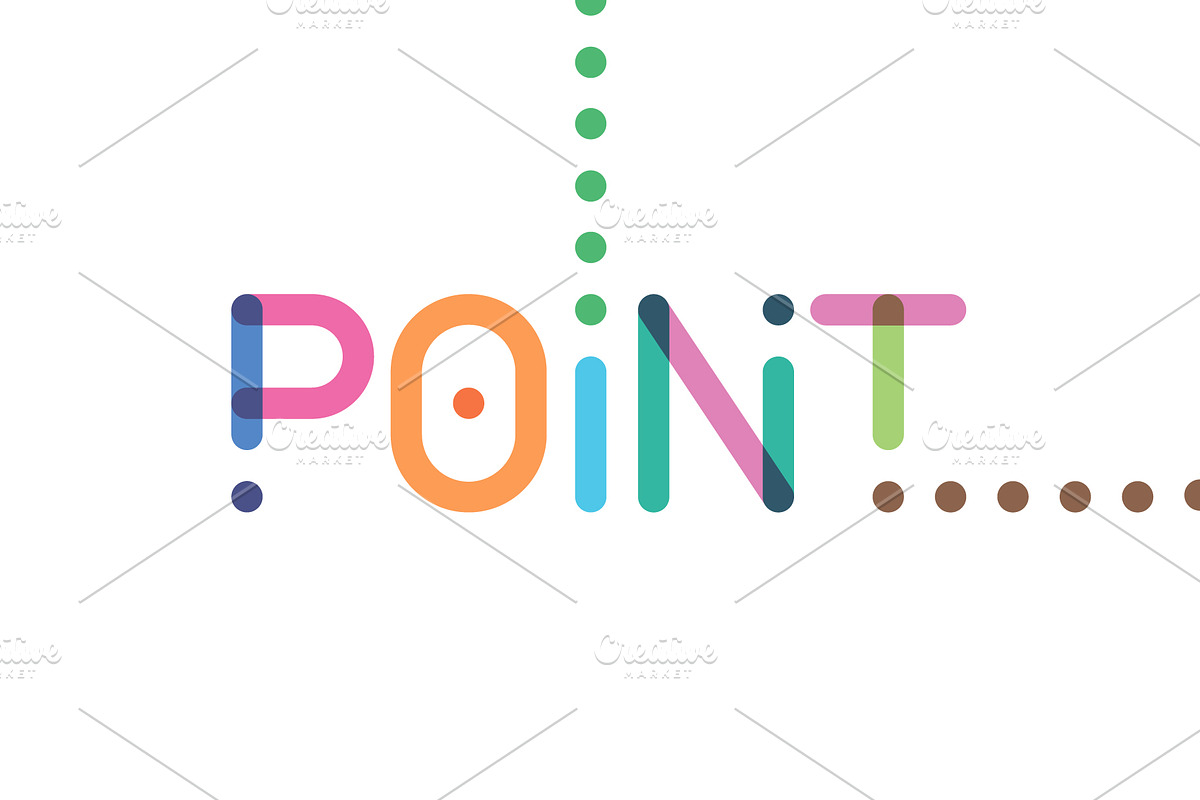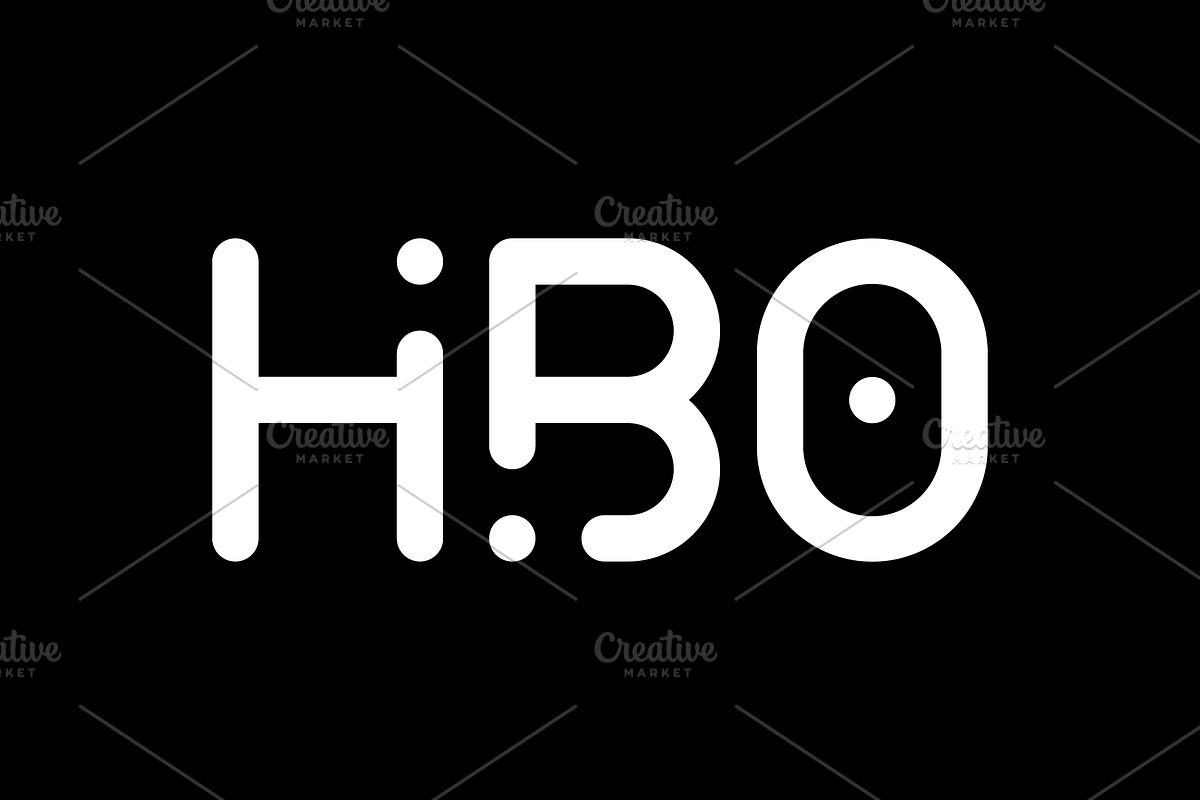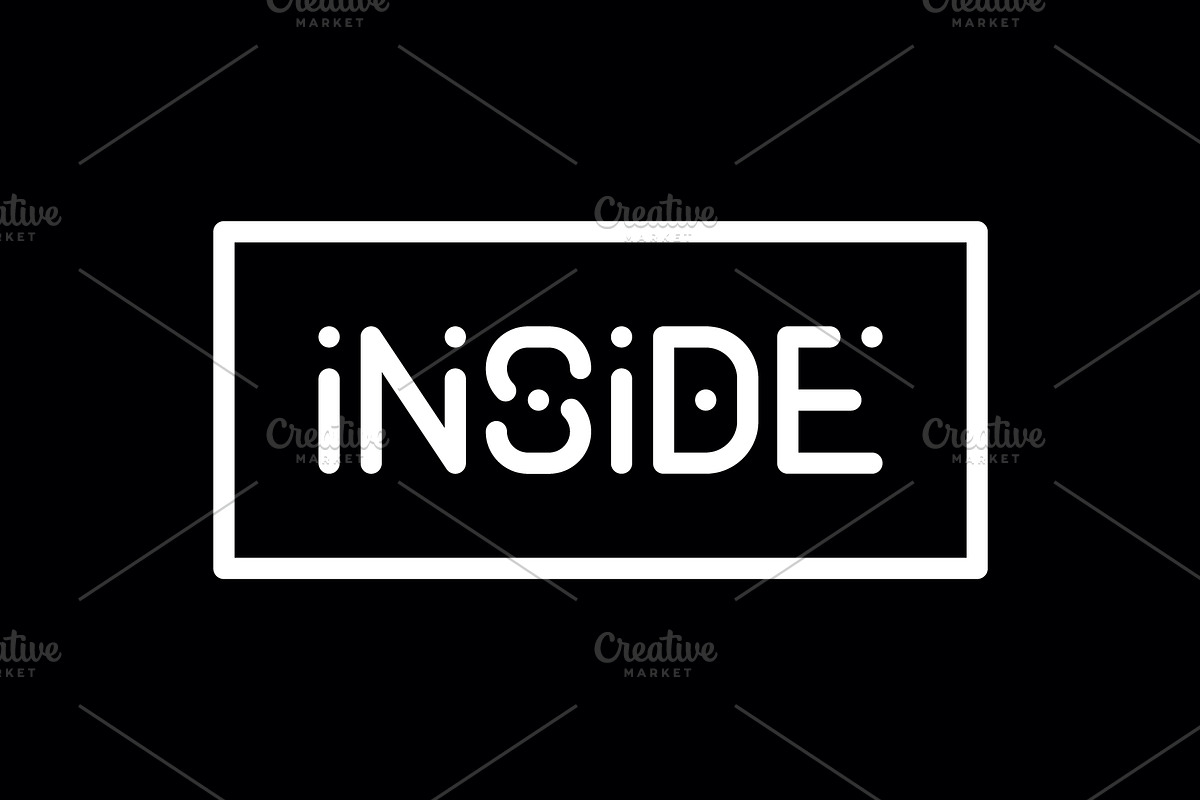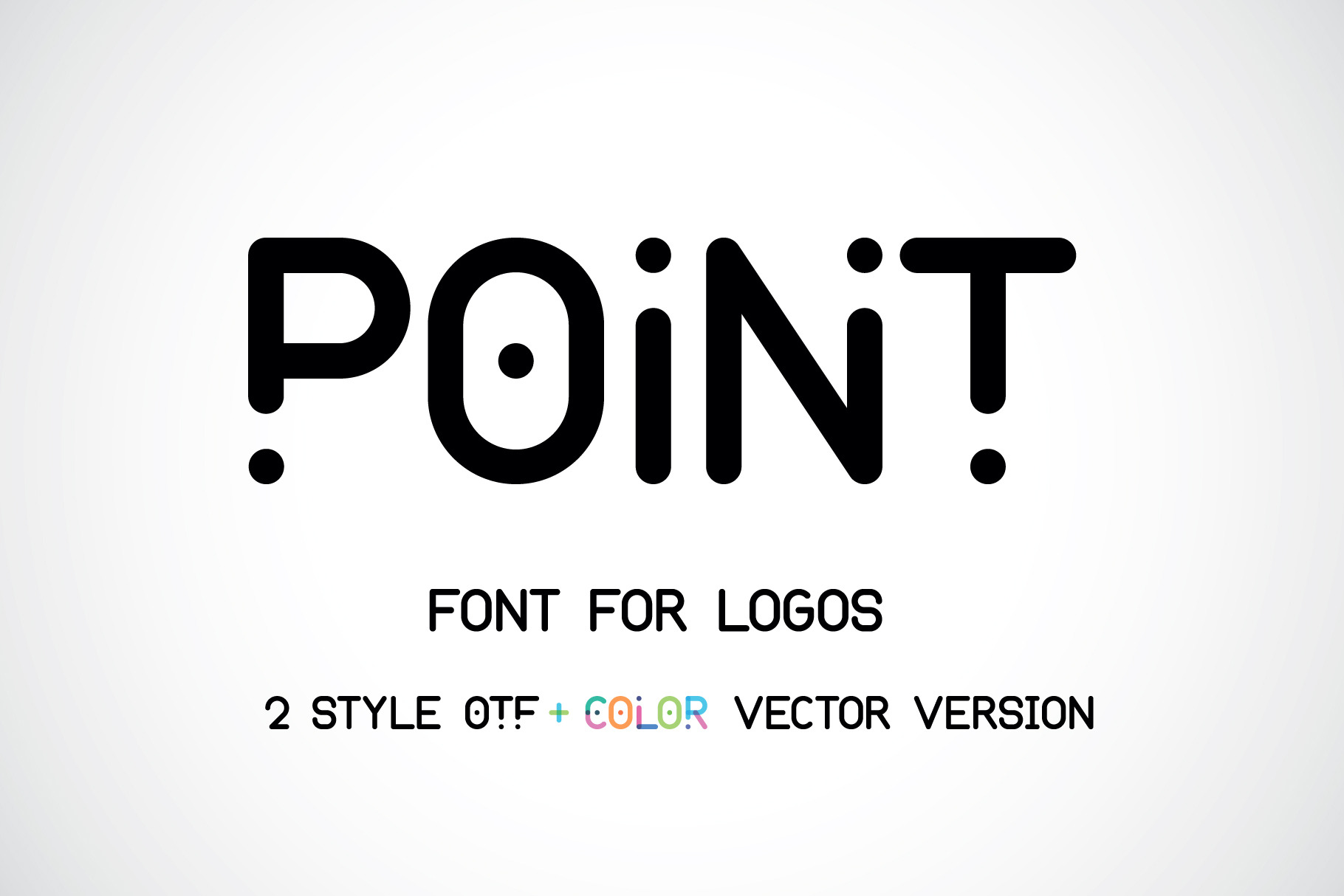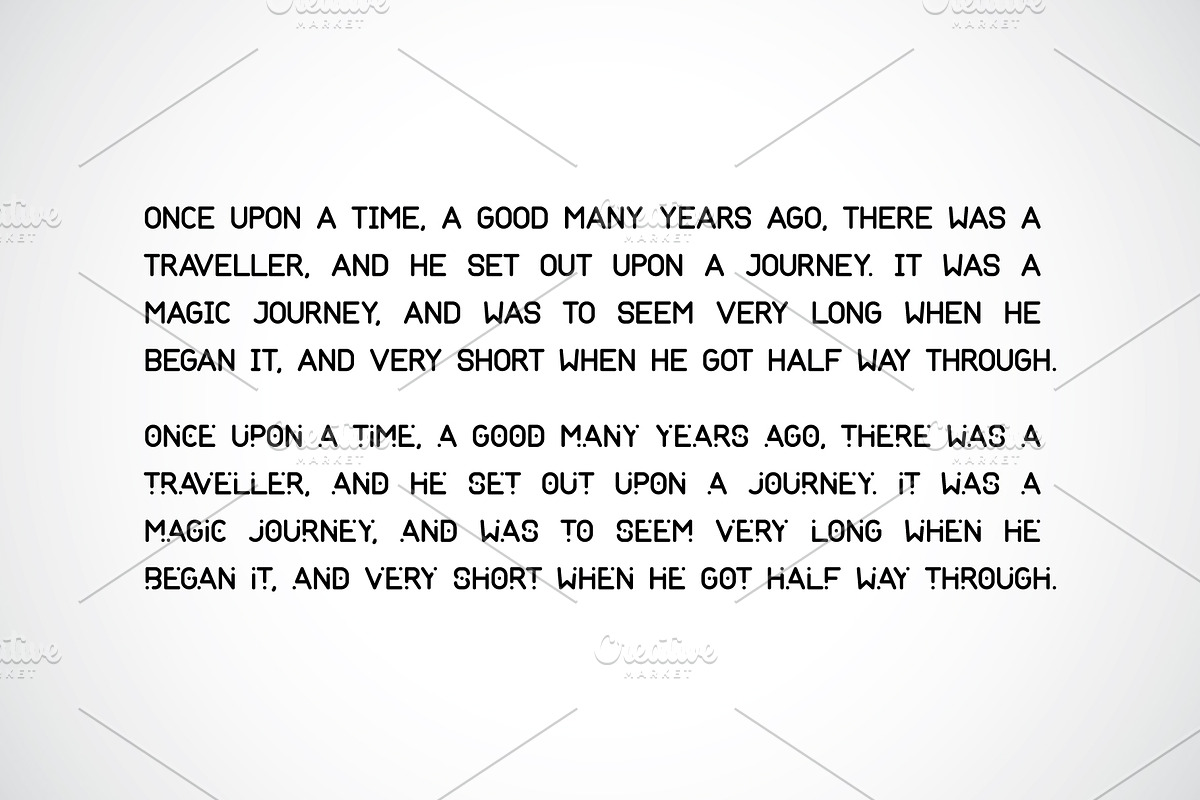
Point Font for logos
Point is a new font for design of logos. The font is suitable for creating wordmarks, titles, taglines.
Font includes 2 styles: Basic and with Point in format OTF.
You also get 2 versions of vector color font with effect of transparency.